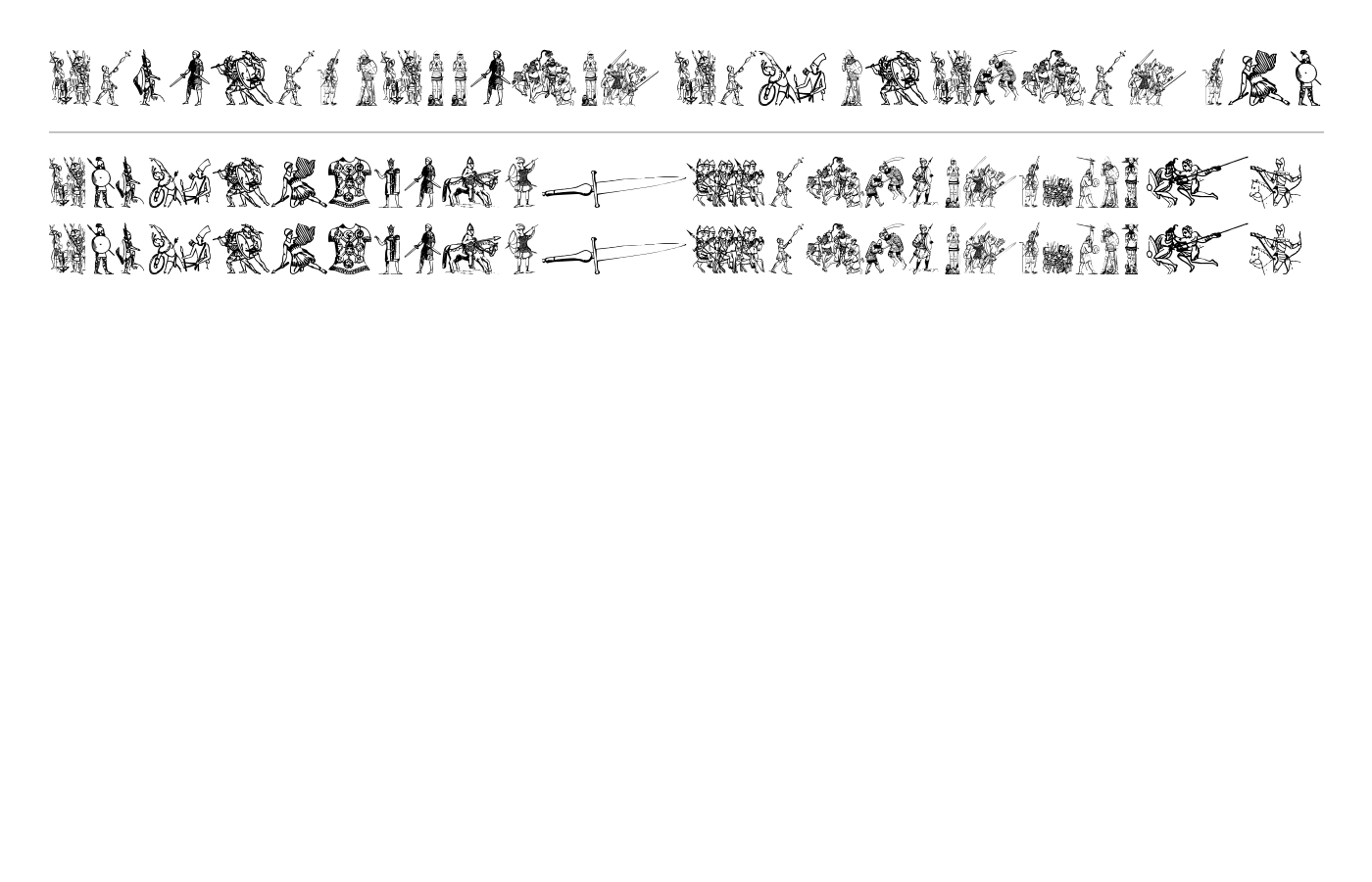
Ancient Warriors and Weapons tfb is a decorative symbol font that features detailed line-art illustrations of historical warriors and weaponry, capturing a vintage and battle-ready aesthetic. This font is ideal for creative projects needing a thematic touch rooted in history or combat, such as themed posters, book covers, or educational materials, where visual storytelling with unique iconography is essential. Its intricate and highly stylized images bring a distinct, immersive character rather than traditional text use.
Ancient warriors and weapons tfb Font
About Ancient warriors and weapons tfb Font